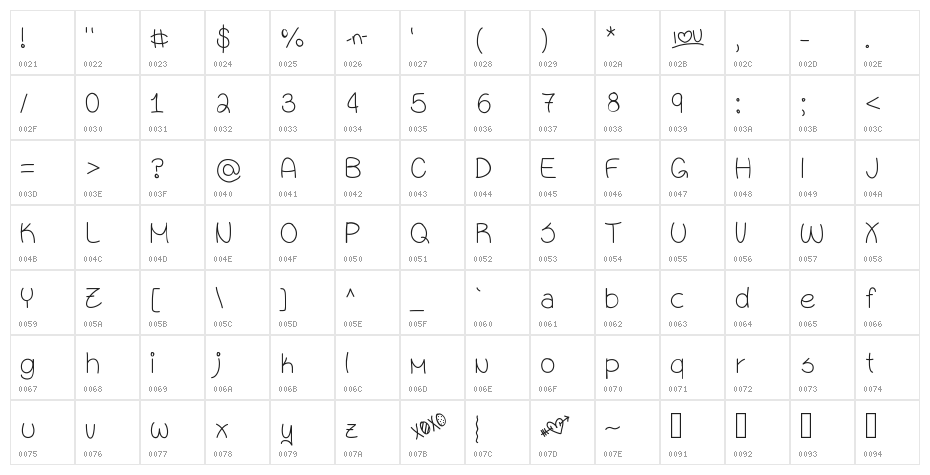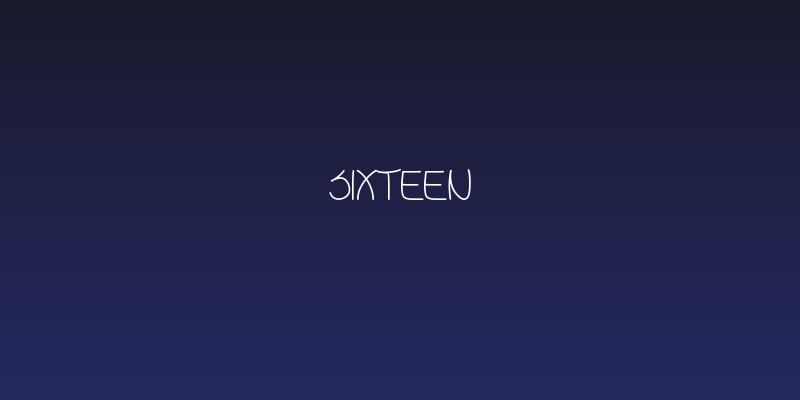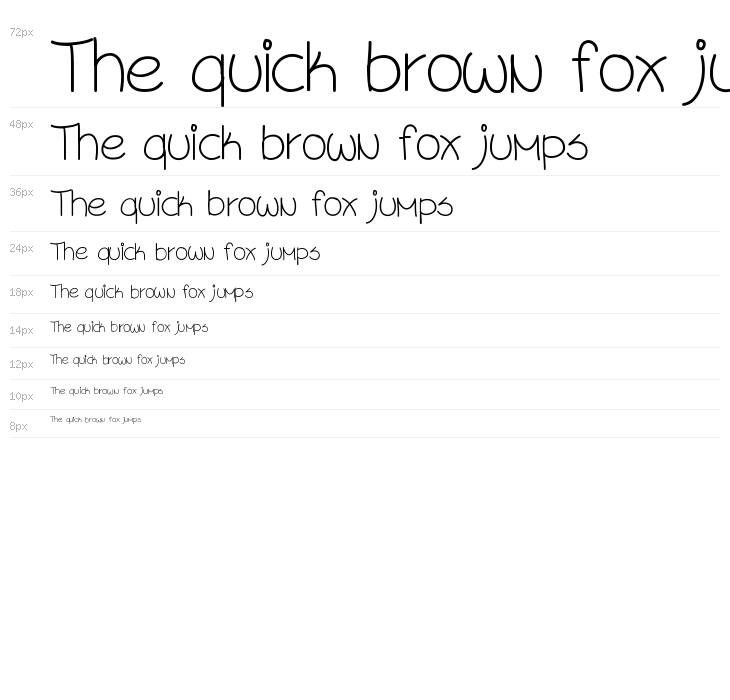
Sixteen Font
Sixteen Description
This font features a playful and whimsical style with a handwritten appearance. The characters are rounded and slightly irregular, giving it a casual and friendly feel. The uppercase letters are tall and narrow, while the lowercase letters maintain a consistent height, adding to the font's approachable nature. The numerals are clear and easy to read, matching the overall aesthetic of the font. Special characters are included, maintaining the same playful style. This font is ideal for projects that require a personal touch or a fun, informal vibe.
Overall StyleCasual
Use CaseHeadlines, Logos, Informal text
Proposed ProjectsGreat for children's books, greeting cards, casual invitations, and playful branding.